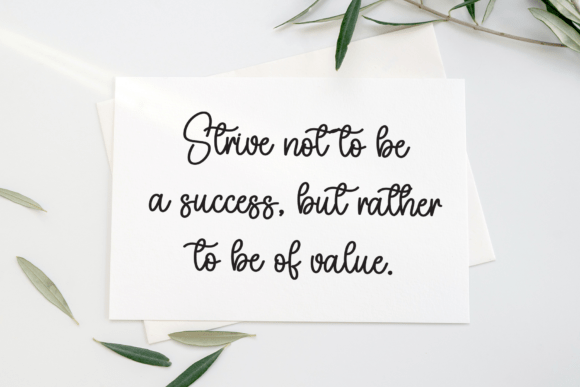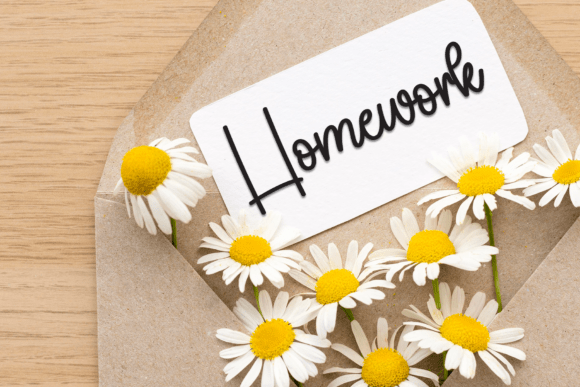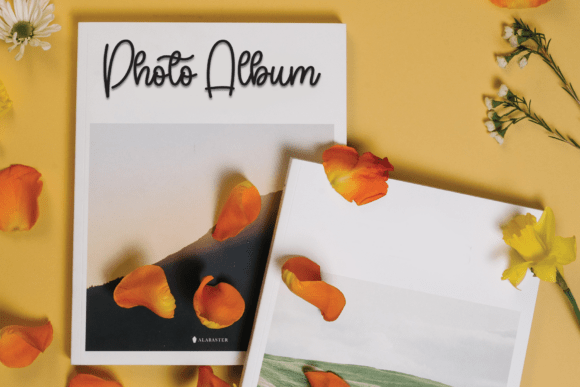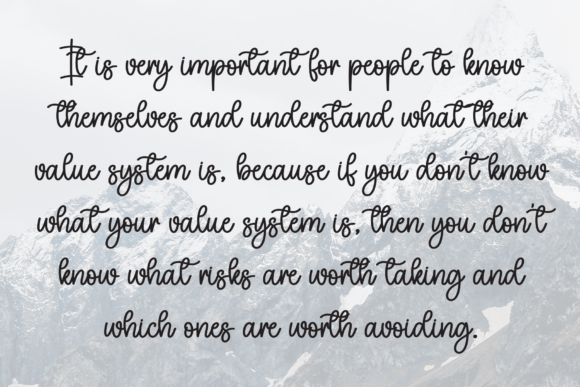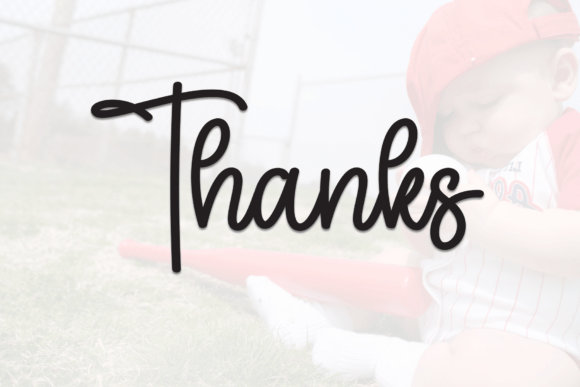
Baby Baseball Font: The Perfect Handwritten Script for Your Designs
Are you looking for a font that adds a playful, casual vibe to your designs? Look no further than Baby Baseball, a modern handwritten script font that’s perfect for a variety of projects. With its smooth curves and flowing strokes, Baby Baseball brings a friendly, handmade touch to every design, making it ideal for little ones and adding a personal touch to any project.
What Makes Baby Baseball Special?
Baby Baseball is a versatile font that’s full of character. Its natural handwriting style makes it perfect for a range of applications, from baby apparel and kids’ sports-themed designs to invitations, greeting cards, stickers, posters, and branding projects. The font’s smooth curves and flowing strokes give it a friendly, approachable feel that’s sure to delight.
Whether you’re a designer or a crafter, Baby Baseball is the perfect font for your projects. Its uppercase and lowercase letters, numerals, and punctuation make it easy to use in a variety of contexts, and its PUA-encoded design allows for effortless access to all glyphs, swashes, and alternate characters. This means you can easily customize your designs and add a personal touch.
Use Baby Baseball for:
- Baby apparel and kids’ clothing designs
- Kids’ sports-themed designs, such as baseball-themed logos and branding
- Stickers and posters
- Branding projects and logos
- Social media posts and YouTube covers
- Cricut and Silhouette crafts
The Benefits of Baby Baseball
So why choose Baby Baseball for your designs? Here are just a few benefits:
- Unique and playful style: Baby Baseball has a unique, playful style that’s sure to stand out.
- Versatile: The font is versatile and can be used in a range of contexts.
- Easy to use: With uppercase and lowercase letters, numerals, and punctuation, Baby Baseball is easy to use in a variety of designs.
- PUA-encoded: The font is PUA-encoded, making it easy to access all glyphs, swashes, and alternate characters.
Adding a Personal Touch to Your Designs
One of the best things about Baby Baseball is its ability to add a personal touch to your designs. The font’s natural handwriting style makes it feel like you’re adding a personal message to your designs, rather than just using a standard font. This is perfect for designers and crafters who want to add a personal touch to their work.
Why Choose Baby Baseball?
So why choose Baby Baseball over other fonts? Here are just a few reasons:
- High-quality design: Baby Baseball is a high-quality font that’s been carefully designed to look great in a variety of contexts.
- Unique style: The font has a unique style that’s sure to stand out.
- Easy to use: Baby Baseball is easy to use, even for designers and crafters who are new to using fonts.
If you’re looking for a font that adds a playful, casual vibe to your designs, Baby Baseball is the perfect choice. With its smooth curves and flowing strokes, Baby Baseball brings a friendly, handmade touch to every design. Its versatility and ease of use make it perfect for a range of applications, from baby apparel and kids’ sports-themed designs to branding projects and social media posts. So why wait? Download Baby Baseball today and add a modern handwritten warmth to your designs!